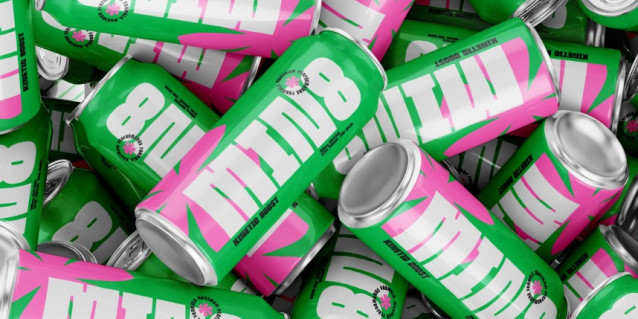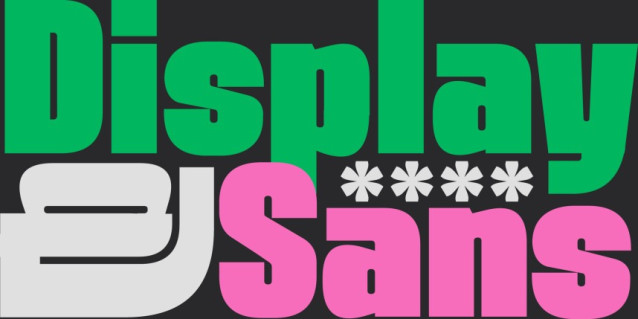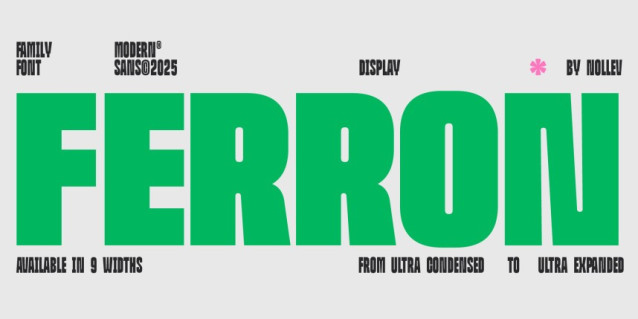
Ferron Font
Ferron Font is a high-octane display typeface designed by Nollev Studio to deliver uncompromising visual strength. Inspired by industrial structures and monumental typography, Ferron features an incredibly bold weight and compact proportions that capture immediate attention.
The centerpiece of Ferron is its revolutionary versatility: it is available in a spectrum of 9 distinct widths, ranging from the dramatically narrow Ultra Condensed to the robustly expansive Ultra Expanded. This extensive range offers designers un-paralleled control, allowing Ferron to adapt perfectly to any layout size, from tight packaging labels to huge billboards.